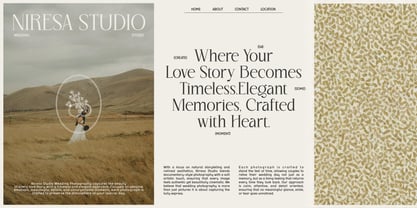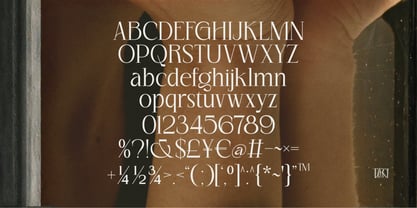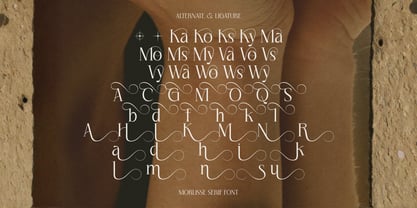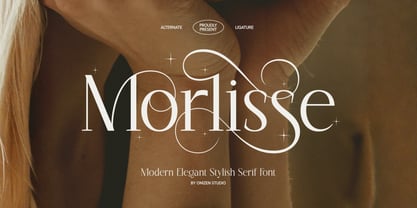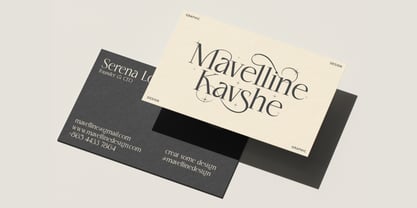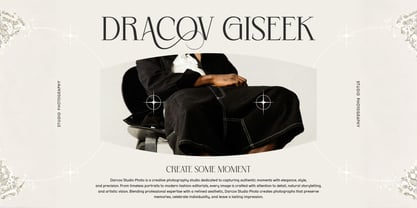
Morlisse
by Omzen Type
The Morlisse Font Family and published by Omzen Type. Morlisse contains 1 styles. More about this family
Morlisse is a sophisticated modern serif font designed to bring a touch of luxury and class to your creative projects. Characterized by its high contrast and fluid decorative ligatures, this typeface is perfect for designers looking to achieve a timeless aesthetic.
Whether you are working on high-end fashion branding, editorial layouts, or elegant wedding invitations, Morlisse offers the versatility and style needed to stand out. Its unique alternates and ligatures allow for custom typography that feels bespoke and professionally crafted.